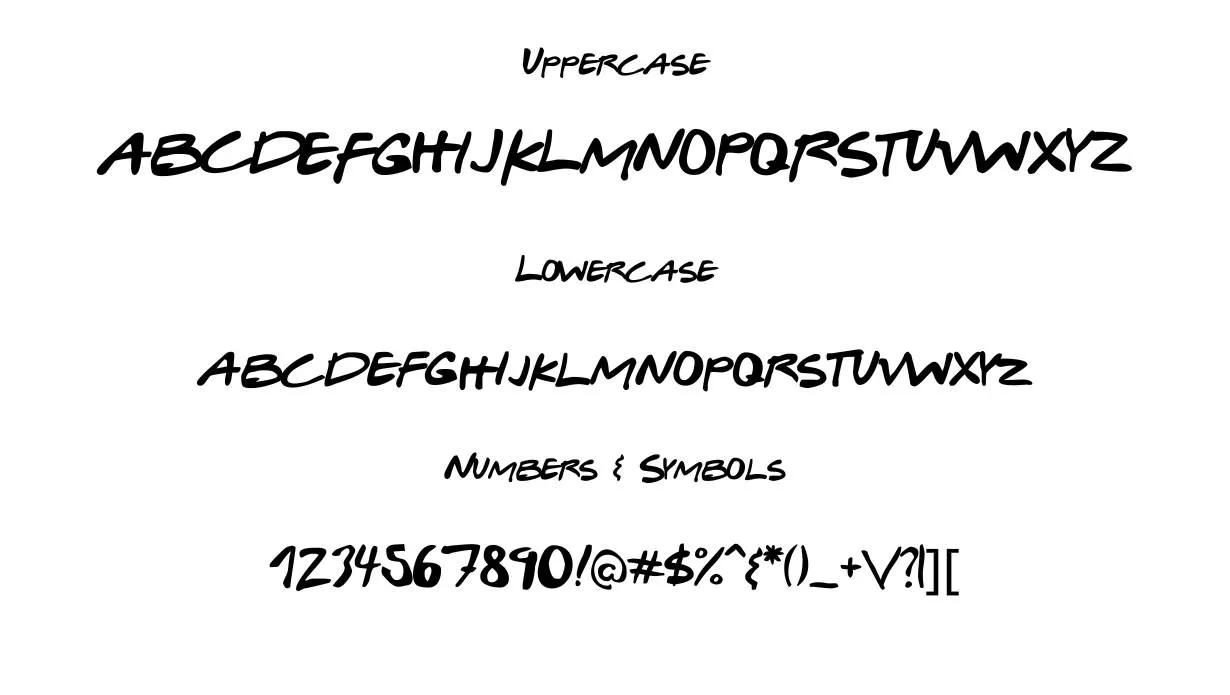
The Friend font has a warm and welcoming vibe. Its soft, easy-to-read letters are perfect for laid-back projects such as greeting cards, casual invites, or relaxed logos. This font brings a cozy and friendly feel to any text.
The weight of this font ranges from regular to bold, offering flexibility in emphasizing text. Its width is usually standard, ensuring readability and a comfortable appearance in various design contexts.
| Name | Friends Font |
| Designer | Gabriel Weiss |